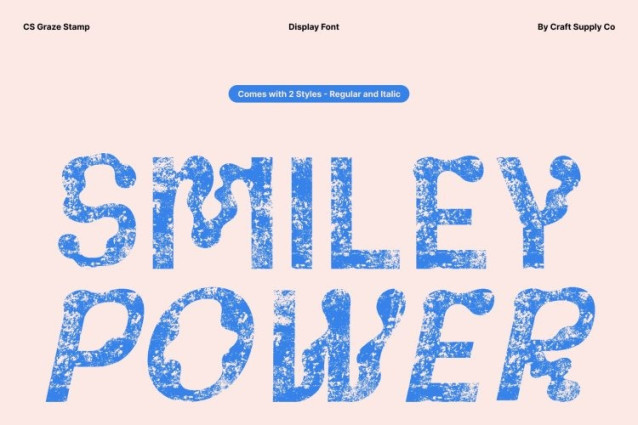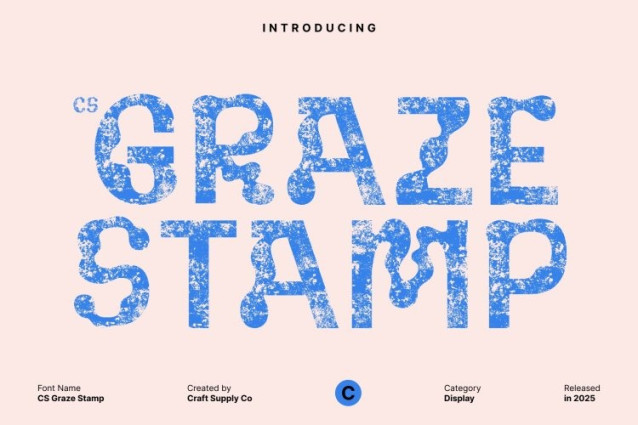
CS Graze Stamp Font
CS Graze Stamp Font This font a brings psychedelic energy to the forefront with its swirling, unexpected curves and bold letterforms. Each character dances with movement, creating a visually vibrant rhythm that instantly draws attention. This expressive style makes the font perfect for creative projects that celebrate freedom, imagination, and artistic experimentation.
Bold Presence for Playful, Eye-Catching Designs
Designed as a display font, delivers striking visual impact. Its thick, curvy shapes command space while keeping a playful and fun tone. Whether used for titles, branding, or poster headlines, the font ensures every message feels lively, energetic, and unmistakably bold.
Vintage Texture Through Stamp Effect
The added stamp effect introduces a rough, tactile texture that enhances its psychedelic personality. This vintage-like finish softens the bold forms with handcrafted charm, giving the font a nostalgic edge while keeping it fresh and artistic. The combination of swirling curves and textured detail results in a dynamic, retro-modern aesthetic.
Perfect for Branding, Posters, and Creative Expression
This font thrives in environments where creativity is key music posters, festival branding, retro-inspired designs, and artistic layouts. Its trippy curves, bold style, and textured vintage vibe make it a standout choice for designers who want to push boundaries while maintaining a playful, engaging look.